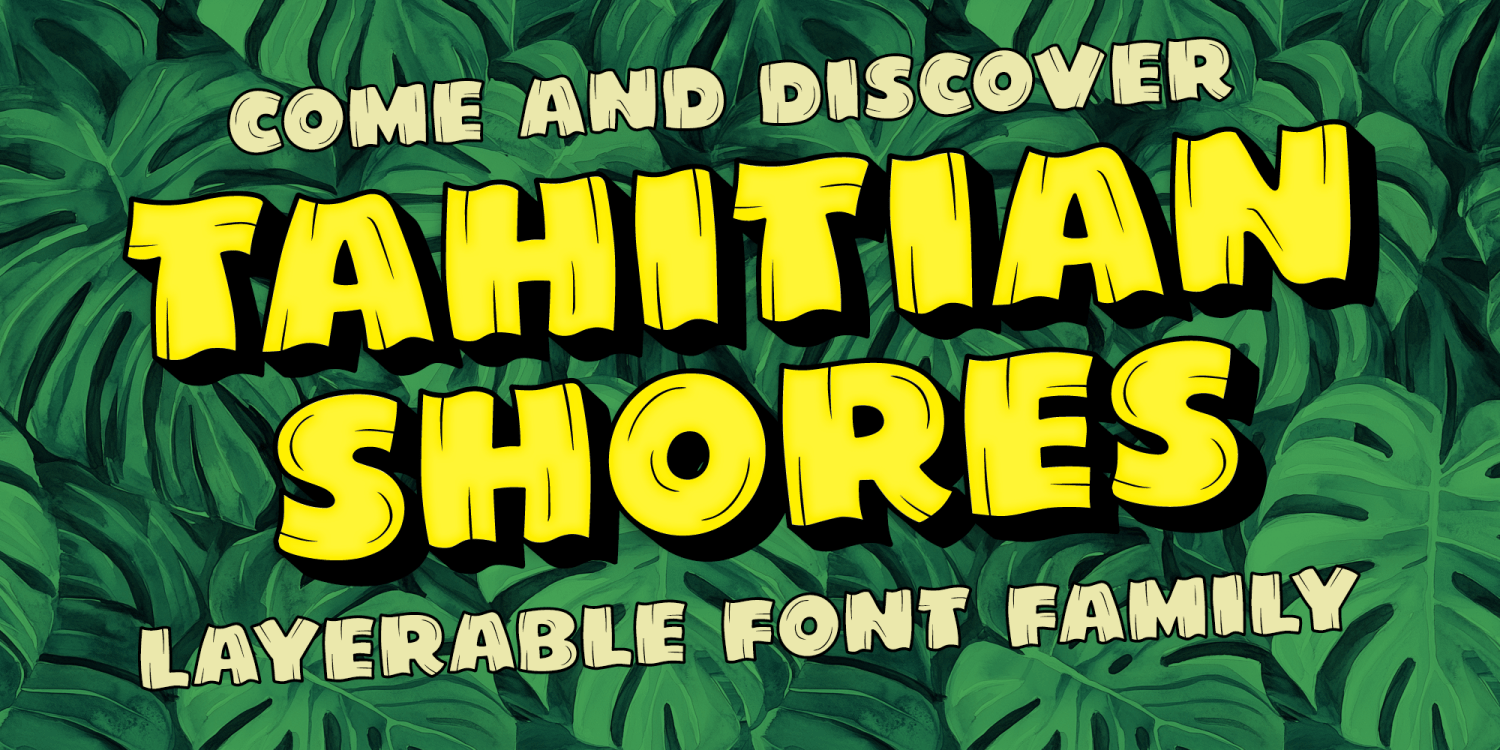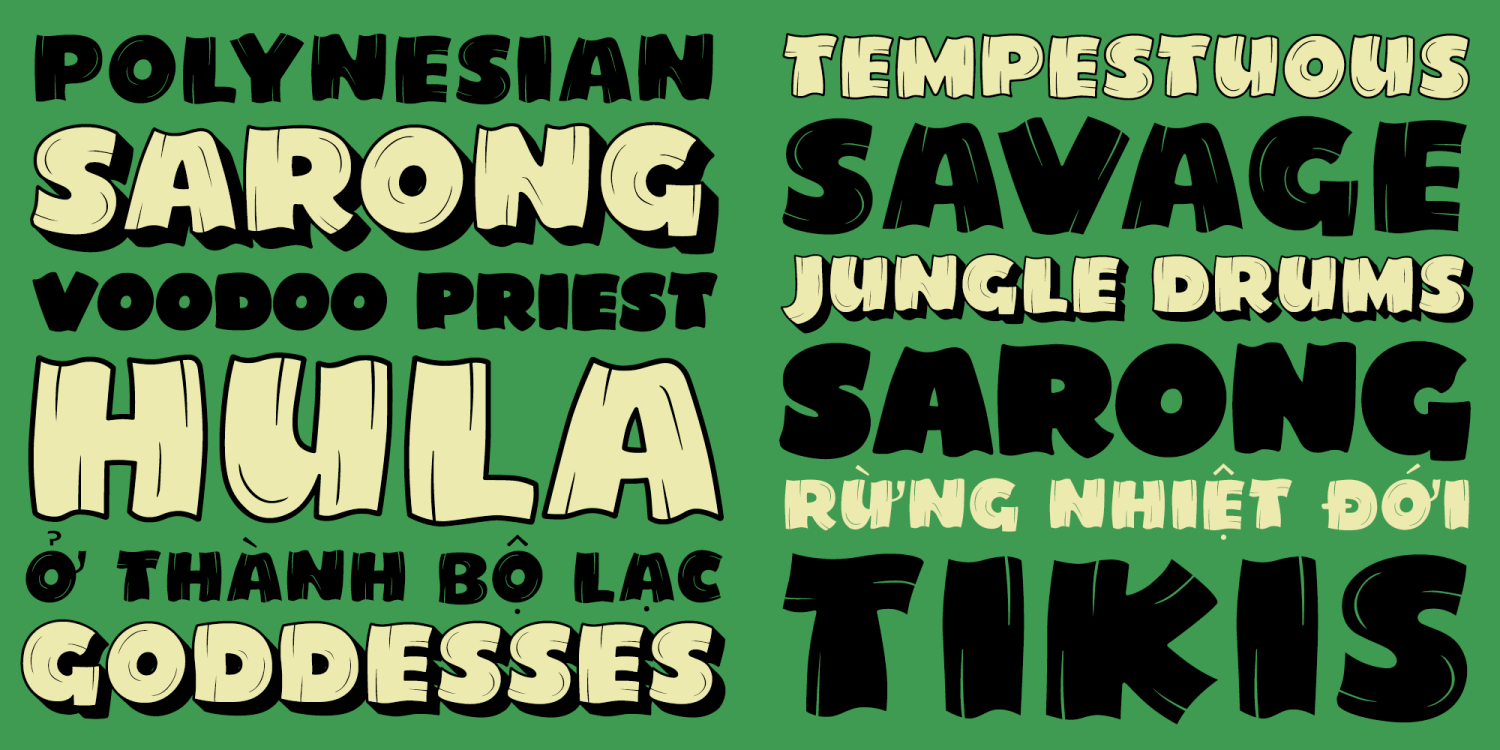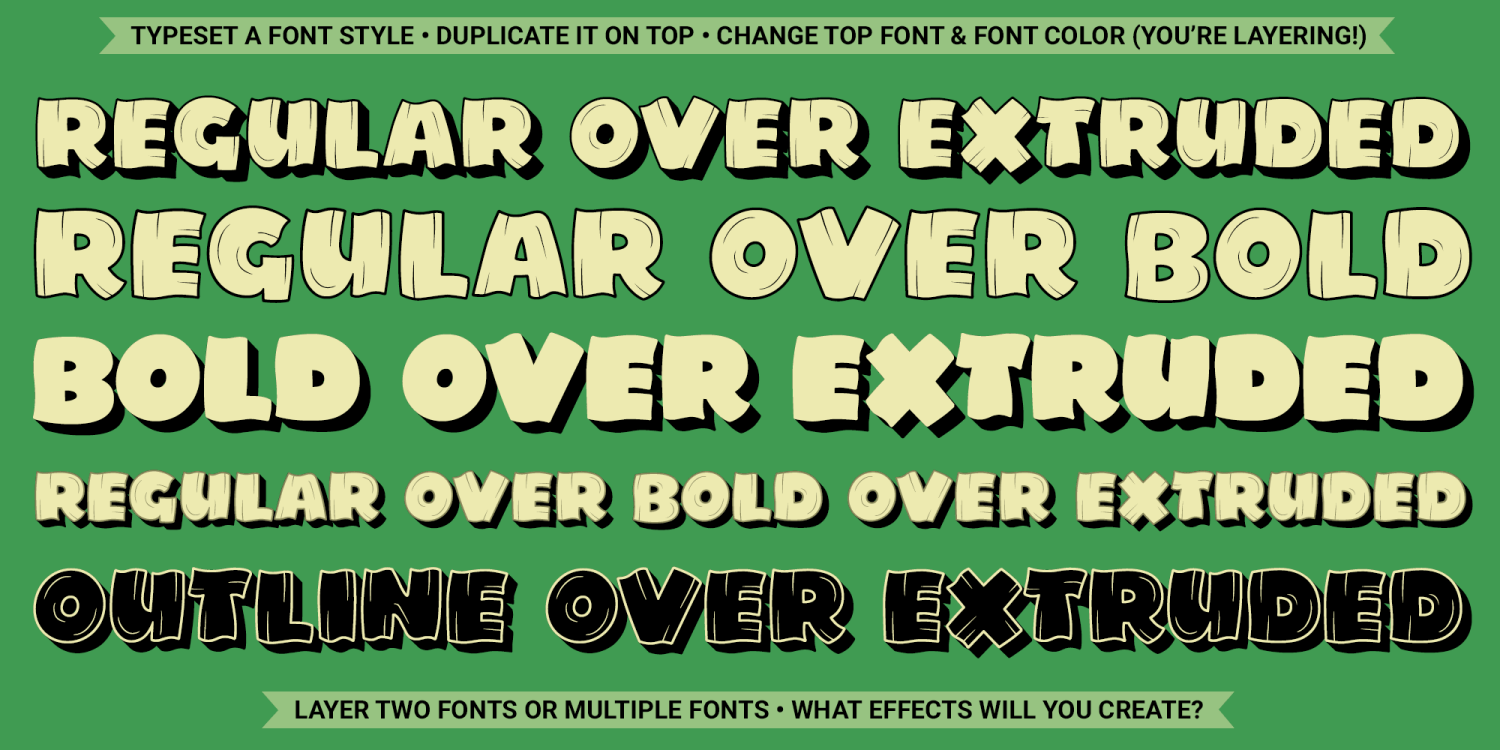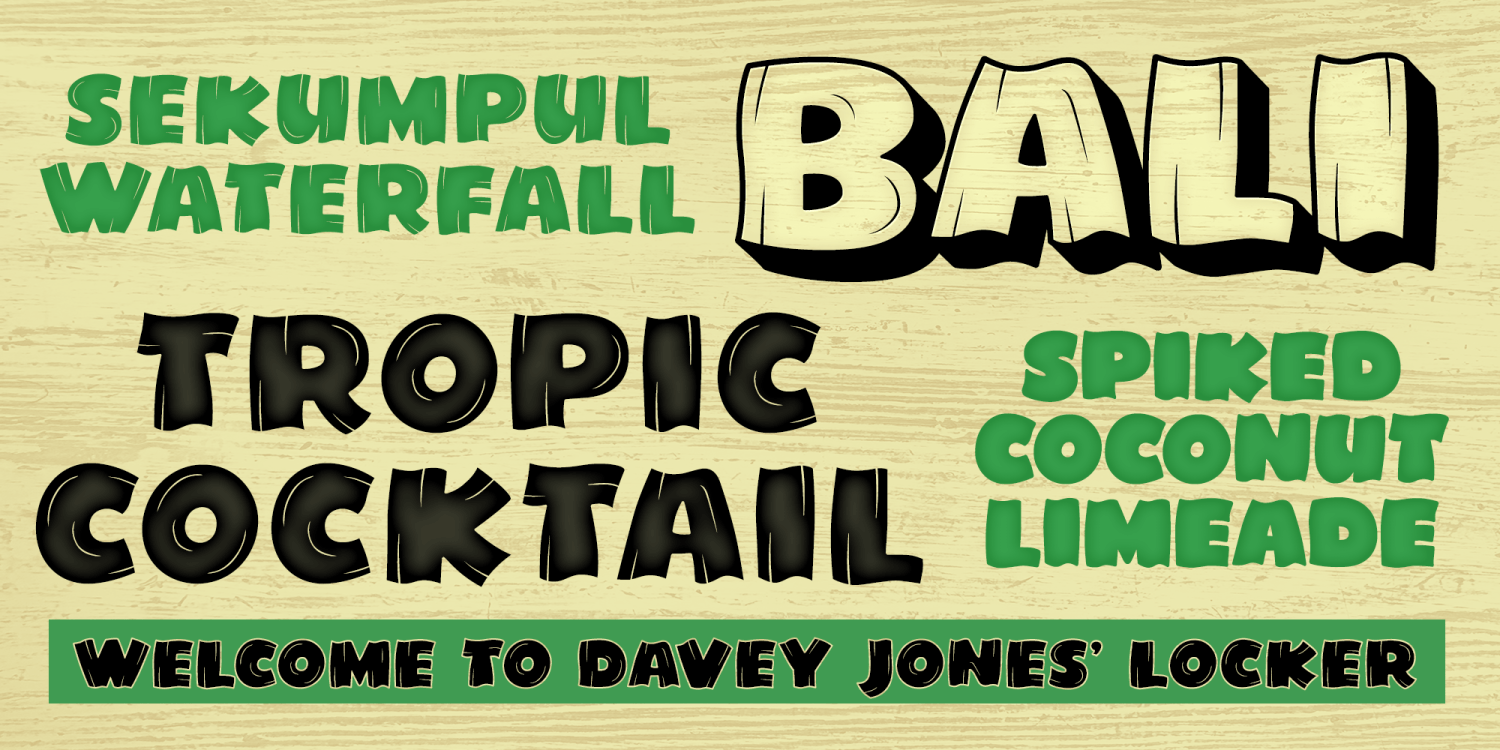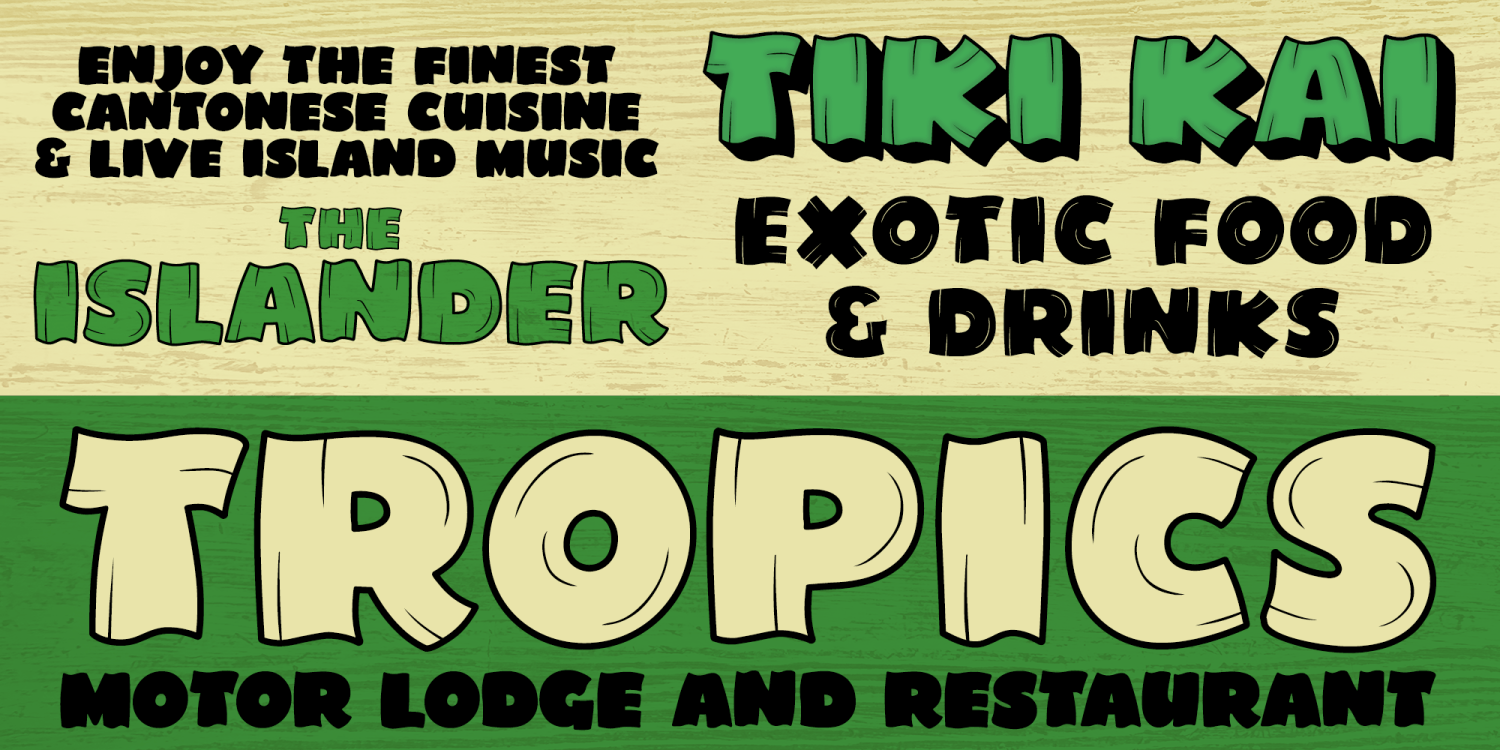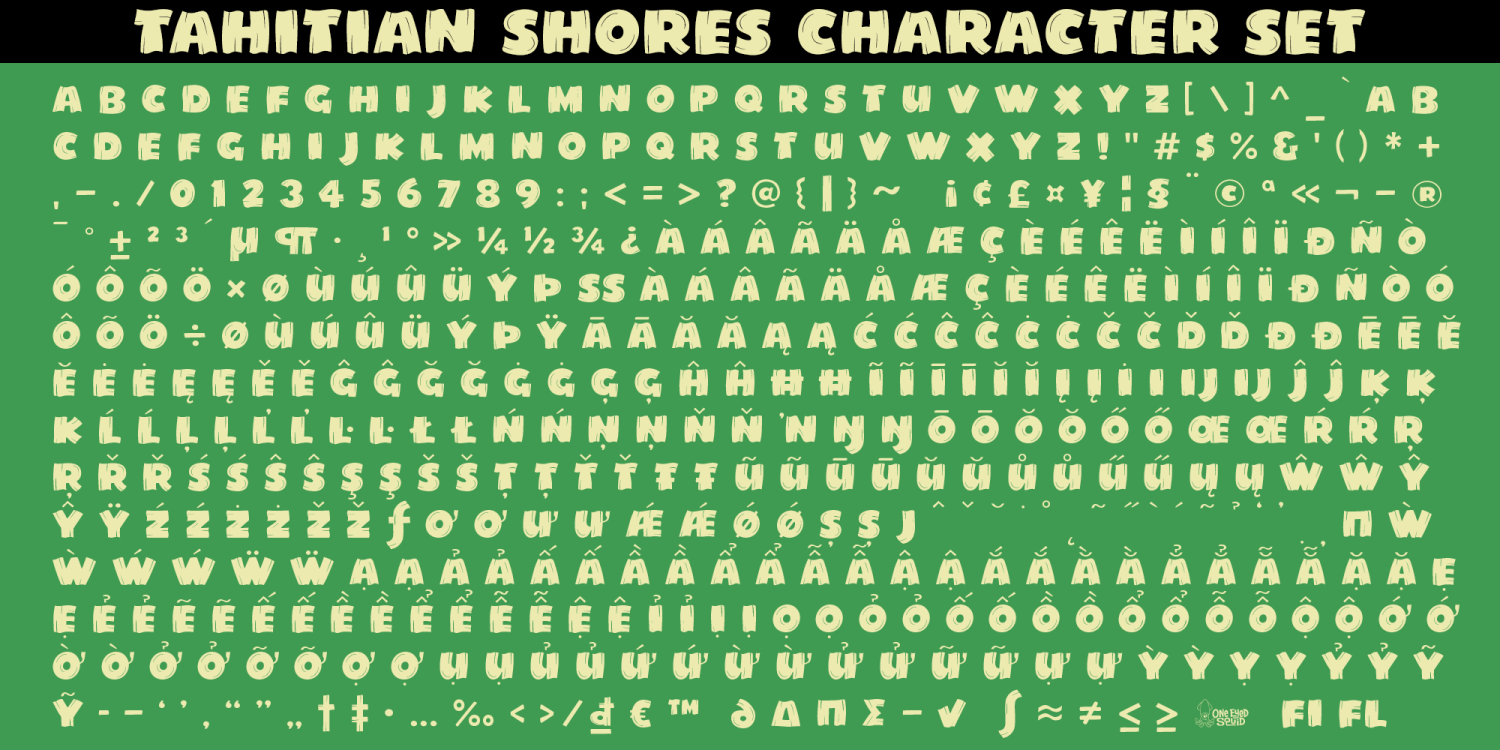
Tahitian Shores
Tahitian Shores is a tropical display font family inspired by the 1941 film South of Tahiti and infused with vintage Polynesian flair, casual warmth, and island atmosphere. Its lively letterforms capture the spirit of classic travel, tiki, and mid-century exotic design while offering flexible styling through four layerable styles: Regular, Bold, Outline, and Extruded. Most styles can be used independently, while layering them opens up a variety of dimensional effects for more decorative treatments. Ideal for posters, branding, packaging, signage, restaurant graphics, event materials, and other creative projects that call for retro tropical character and relaxed island energy. Includes extended Latin language support, including Vietnamese.